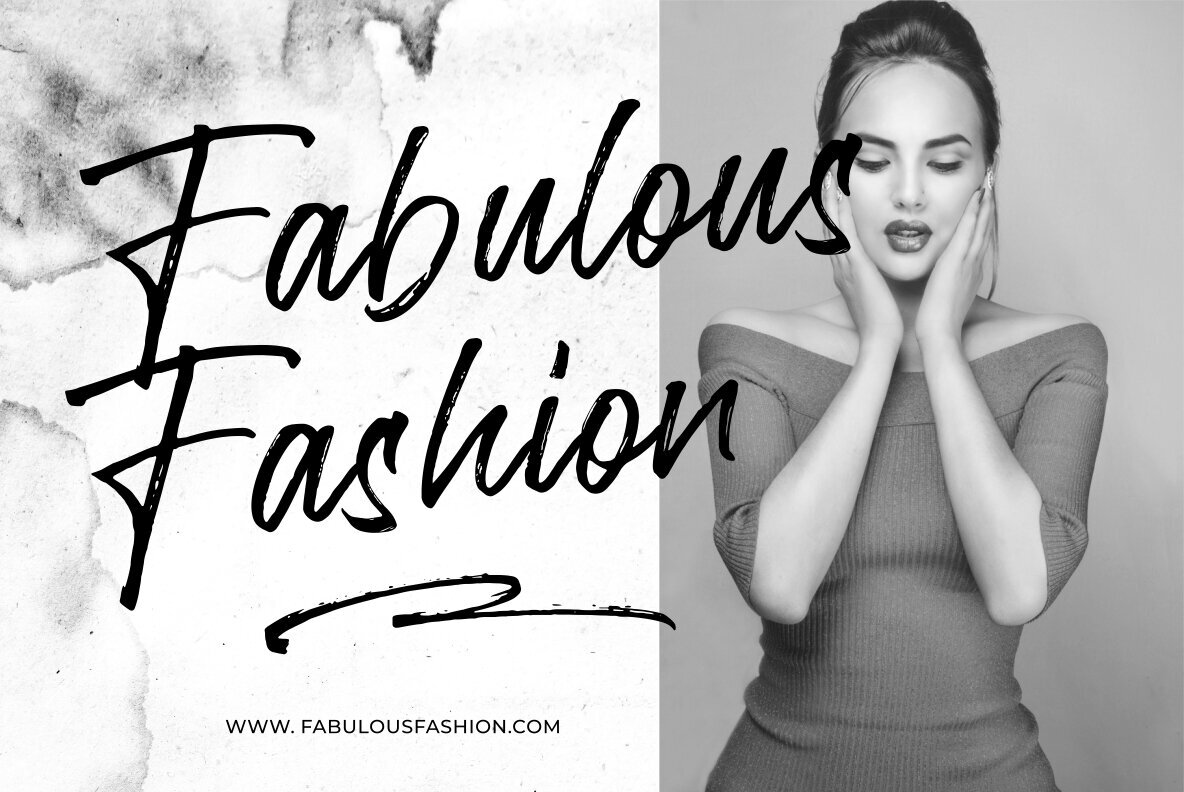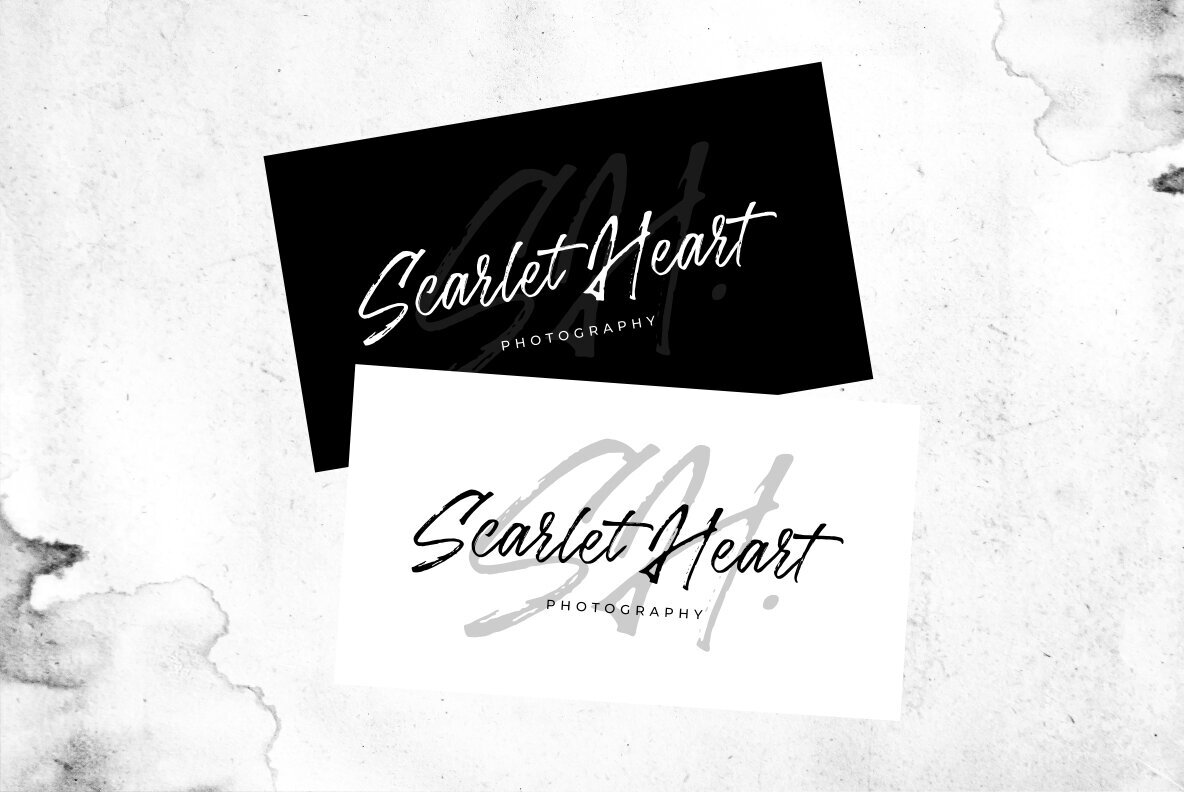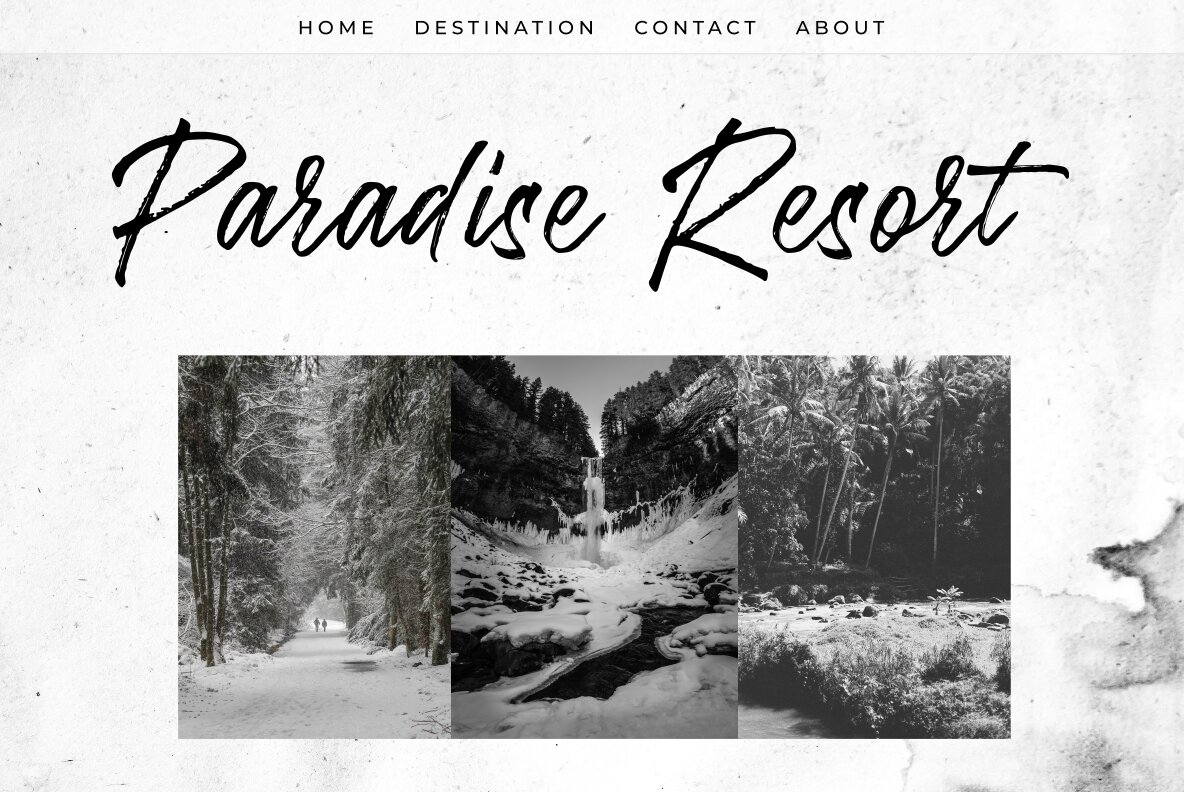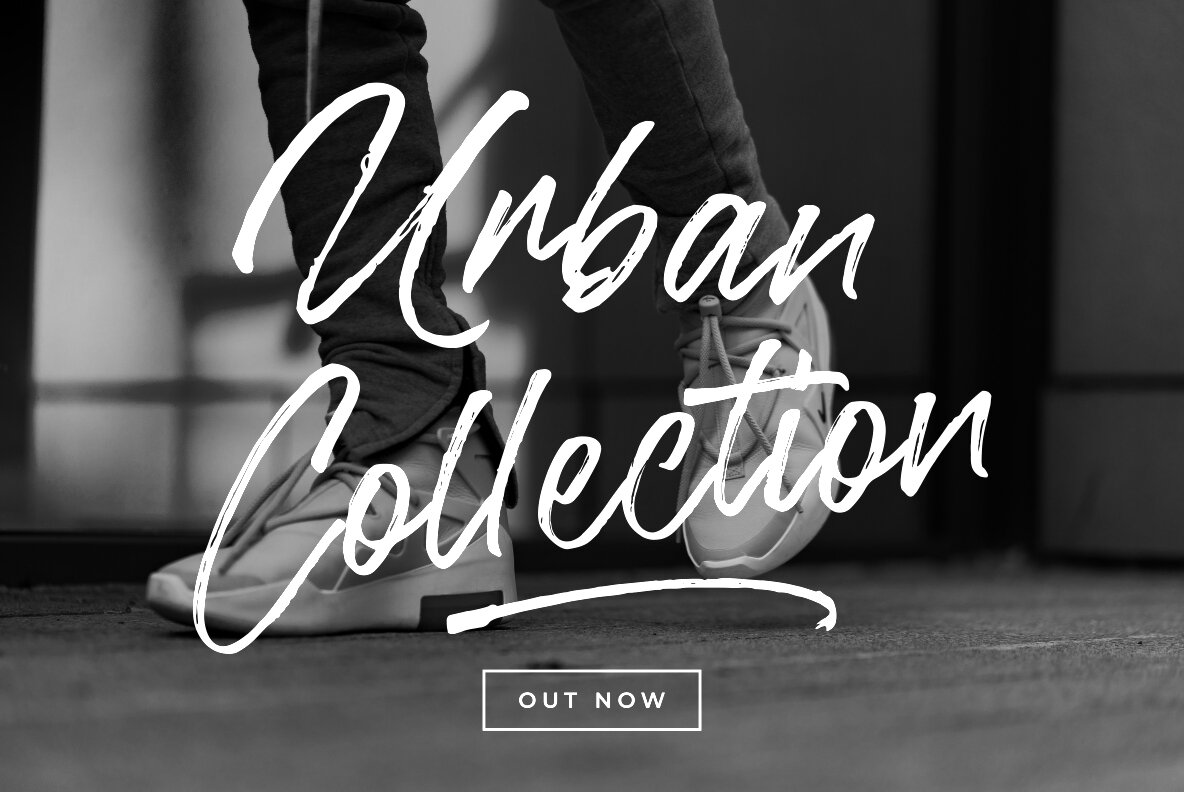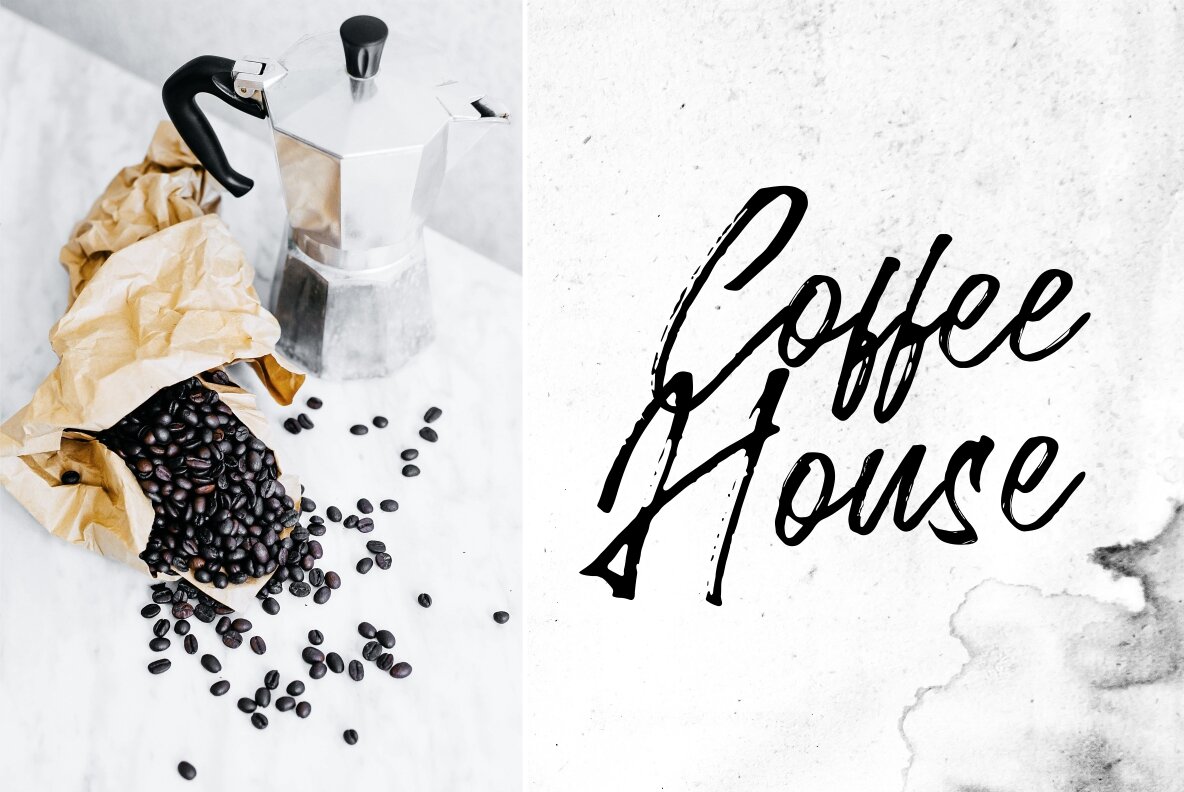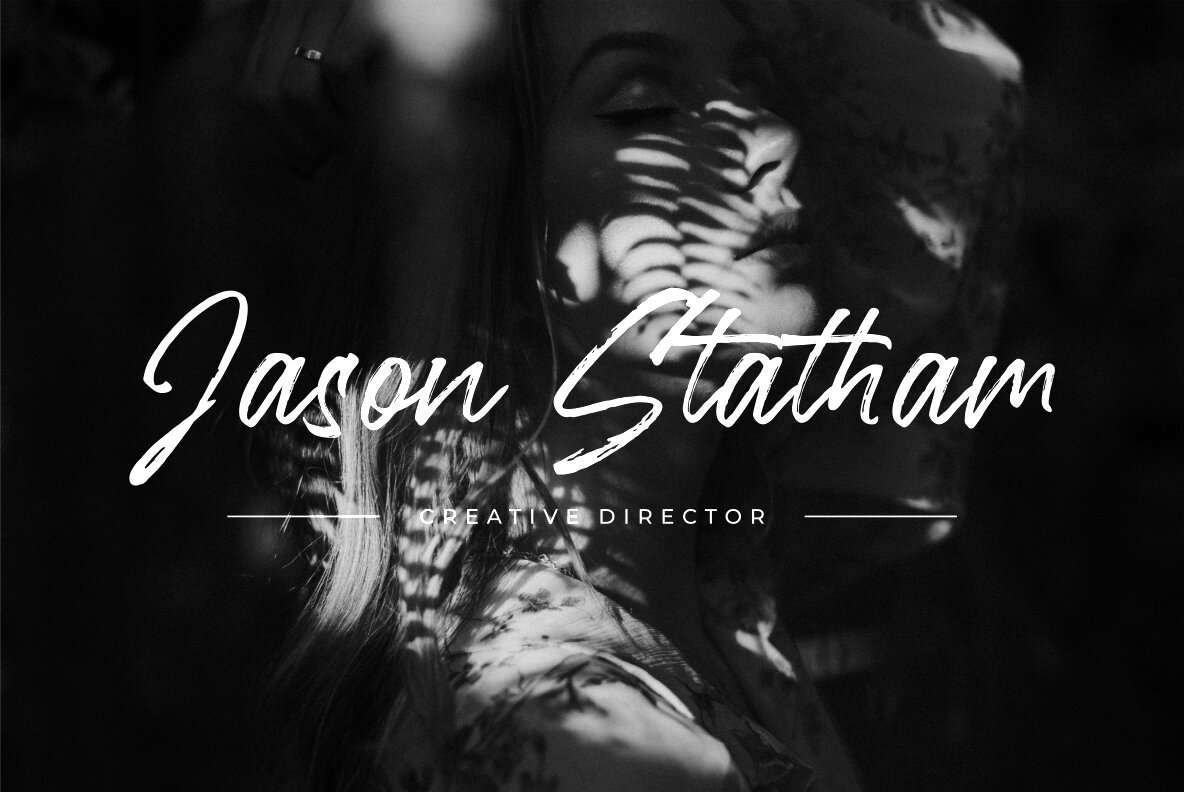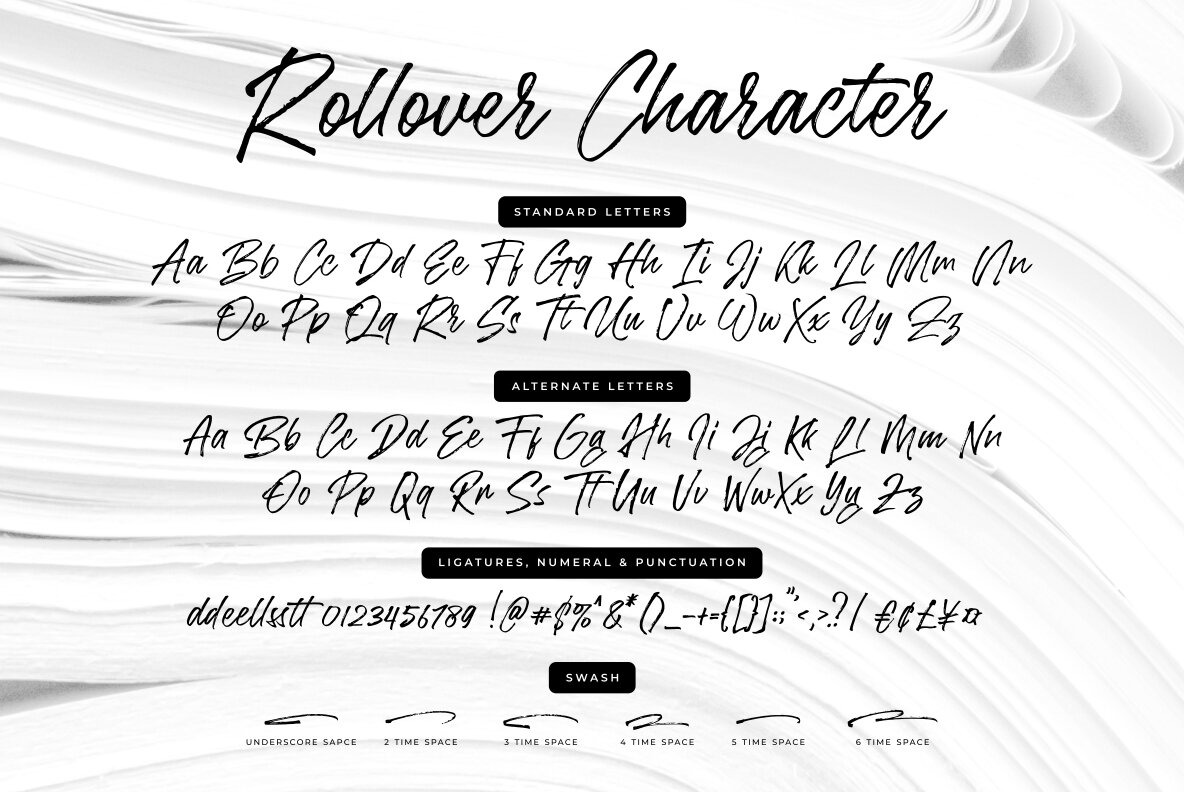
Rollover Font
Rollover Regular
The Rollover Brush Font distinguishes itself through painstakingly drawn letterforms that exude a handcrafted charm. Each brushstroke has been meticulously refined to ensure a natural, bold, and inviting aesthetic. Ideal for branding projects, logos, and product packaging, Rollover offers creative flexibility with its OpenType features that allow for a myriad of artistic variations.Rollover: Expressive Brush Font for Creative Projects